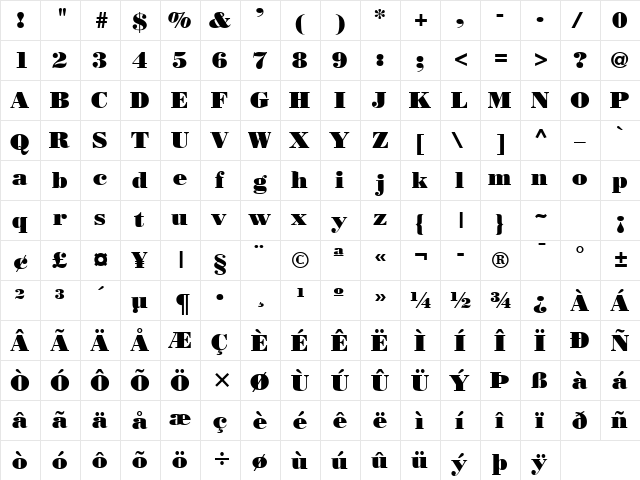
Beau Normal
Design Context for Beau Typeface
Beau offers clean, dependable letterforms without strong stylistic allegiance, making it a practical choice for designers who need flexibility.
Pro Tip: Pair Beau with a font of contrasting weight or personality to build a more expressive typographic hierarchy.